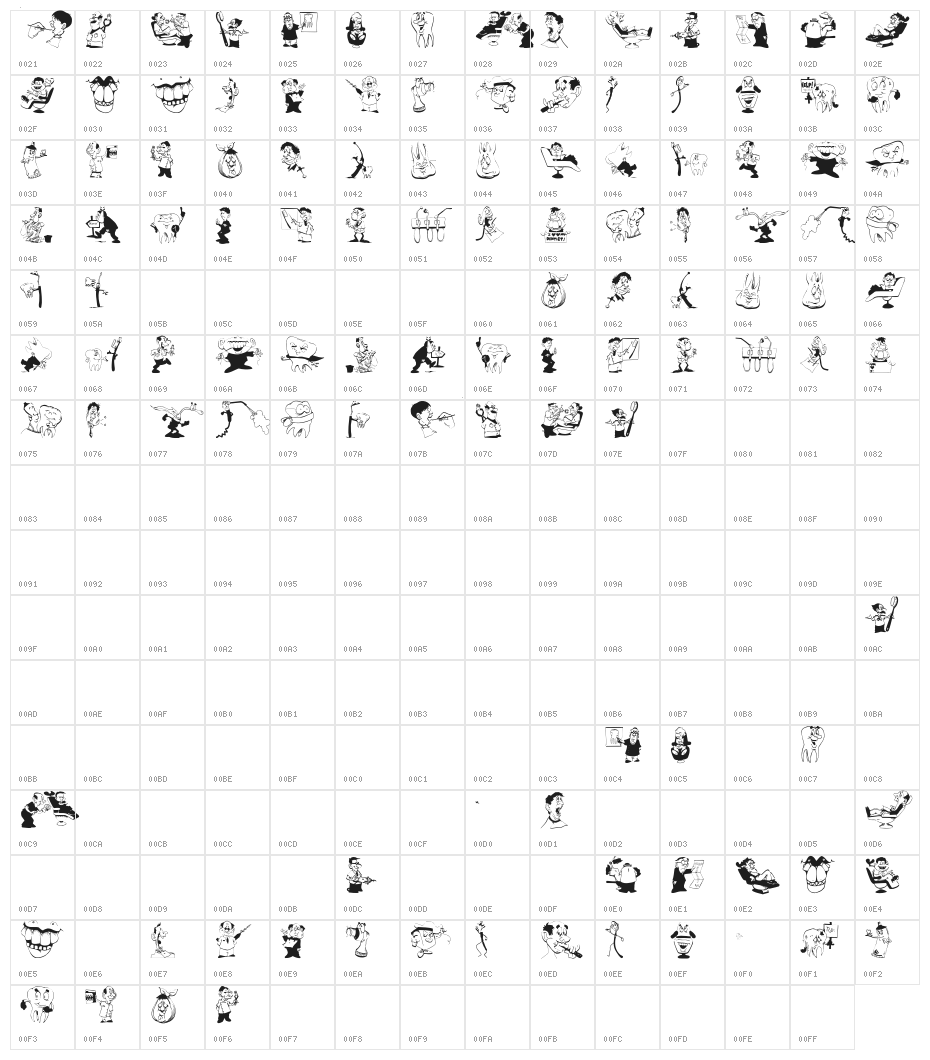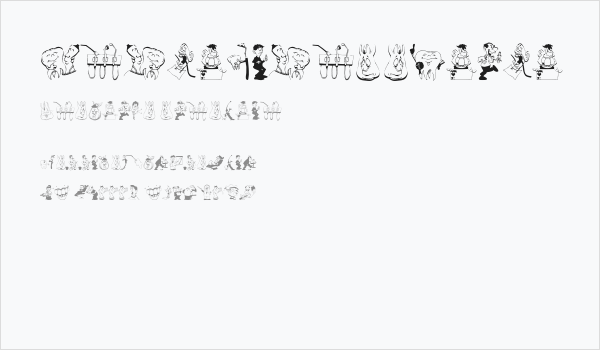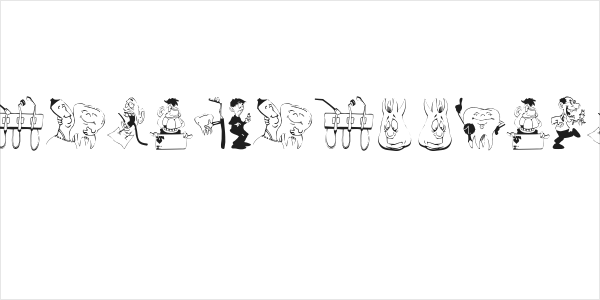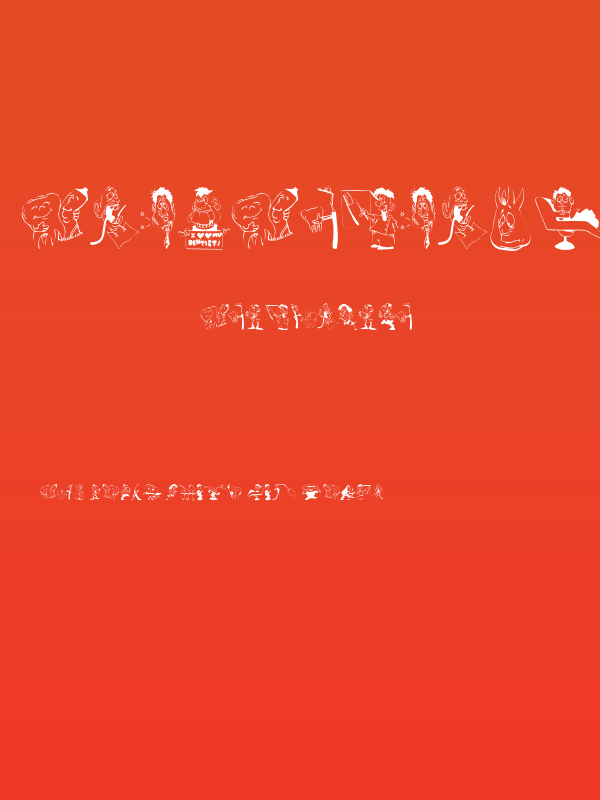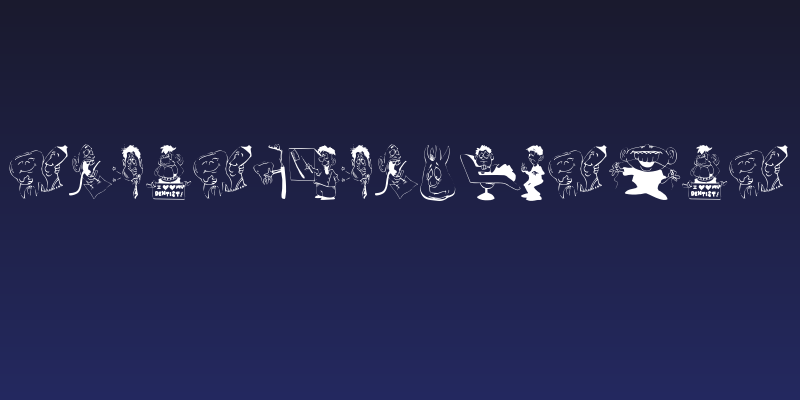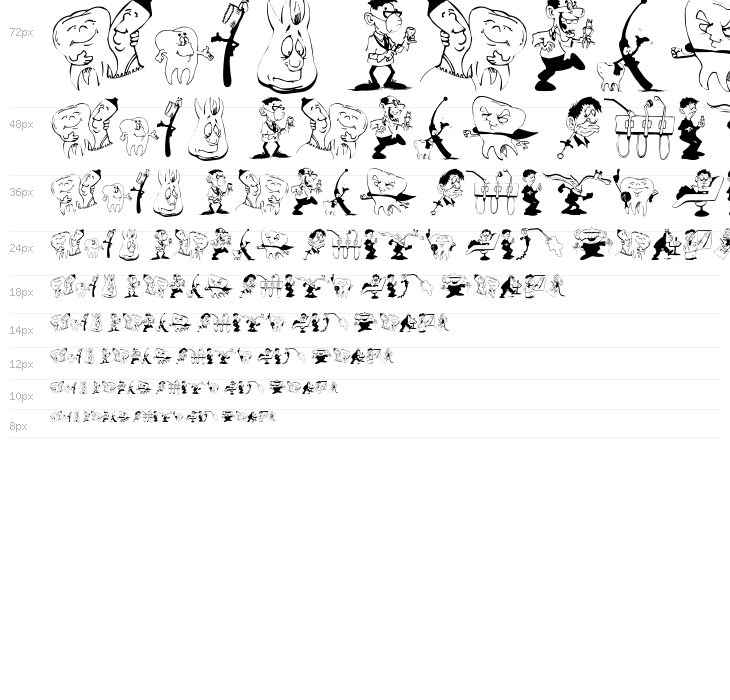
TrustYourDentist Font
TrustYourDentist Description
A highly decorative and whimsical font composed of cartoon-style illustrations related to dentistry, featuring exaggerated characters, teeth, dental tools, and humorous scenes. Each glyph is a unique drawing rather than a traditional letterform, making the font playful and visually engaging.
| Overall Style | Decorative, Whimsical, Playful |
| Use Case | Logos, Posters, Headlines, Themed Graphics |
| Proposed Projects | Children's dental clinic branding, educational posters, comic strips, themed party invitations, playful advertisements. |